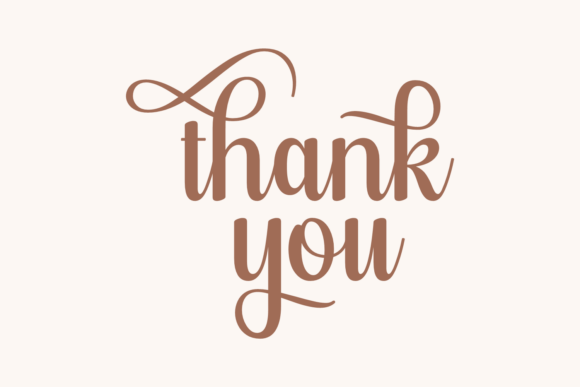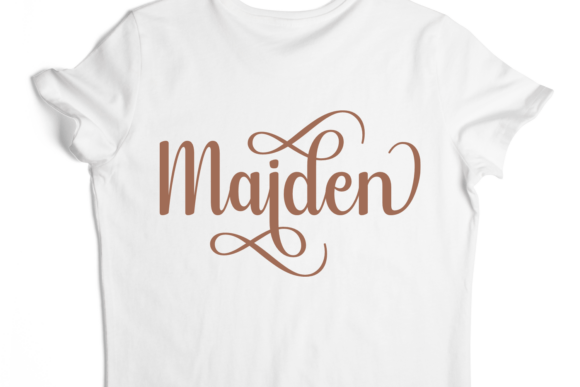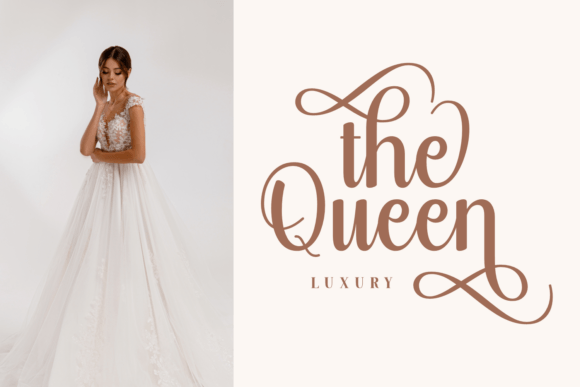
Introducing Geulya Font: Elevate Your Designs with Elegance and Charm
In the world of typography, few fonts manage to capture the essence of elegance and charm as effectively as Geulya. This modern calligraphy font is a masterpiece of design, boasting graceful swashes and flowing strokes that instantly elevate any project to a new level of sophistication. Whether you’re a designer, craftsperson, or simply someone with a keen eye for beauty, Geulya is sure to captivate your imagination and inspire your creativity.
The Beauty of Geulya
Geulya’s design is characterized by its fluid, cursive strokes and intricate swashes, which give it a distinctly feminine and luxurious feel. The font’s elegant lines and curves make it perfect for a wide range of applications, from wedding invitations and branding materials to product packaging, greeting cards, and social media graphics. With Geulya, you can add a touch of sophistication and glamour to any project, making it truly unforgettable.
Geulya’s versatility is one of its most appealing features. This stunning font can be used in a variety of creative projects, including:
- Wedding Invitations: Add a touch of romance and elegance to your wedding invitations with Geulya’s beautiful, flowing script.
- Branding: Elevate your brand’s image with Geulya’s sophisticated and luxurious design, perfect for logos, business cards, and more.
- Product Packaging: Make your products stand out on store shelves with Geulya’s eye-catching and elegant font.
- Greeting Cards: Create beautiful, heartfelt greeting cards for special occasions with Geulya’s charming and whimsical design.
- Social Media Graphics: Add a touch of glamour and sophistication to your social media graphics, including Instagram posts, Facebook banners, and more.
Why Choose Geulya?
So why choose Geulya over other fonts? Here are just a few reasons why this stunning font has become a favorite among designers and crafters:
- Timeless Design: Geulya’s classic, elegant design ensures that your projects will never go out of style.
- Versatility: This font can be used in a wide range of projects, from formal events to everyday applications.
- Feminine Charm: Geulya’s flowing strokes and swashes add a touch of femininity and whimsy to any project.
- Luxurious Feel: This font’s sophisticated design makes it perfect for high-end branding, packaging, and marketing materials.
Tips for Using Geulya
To get the most out of Geulya, here are a few tips to keep in mind:
- Experiment with Sizes: Geulya looks stunning in a variety of sizes, from large headings to smaller body text.
- Play with Colors: This font looks beautiful in a range of colors, from classic black and white to bold, bright hues.
- Mix and Match: Combine Geulya with other fonts to create unique and eye-catching typography.
In conclusion, Geulya is a truly exceptional font that offers a unique combination of elegance, charm, and versatility. Whether you’re a designer, craftsperson, or simply someone who appreciates beautiful typography, Geulya is sure to inspire your creativity and elevate your projects to new heights. With its timeless design, luxurious feel, and feminine charm, Geulya is the perfect choice for anyone looking to add a touch of sophistication and glamour to their work.